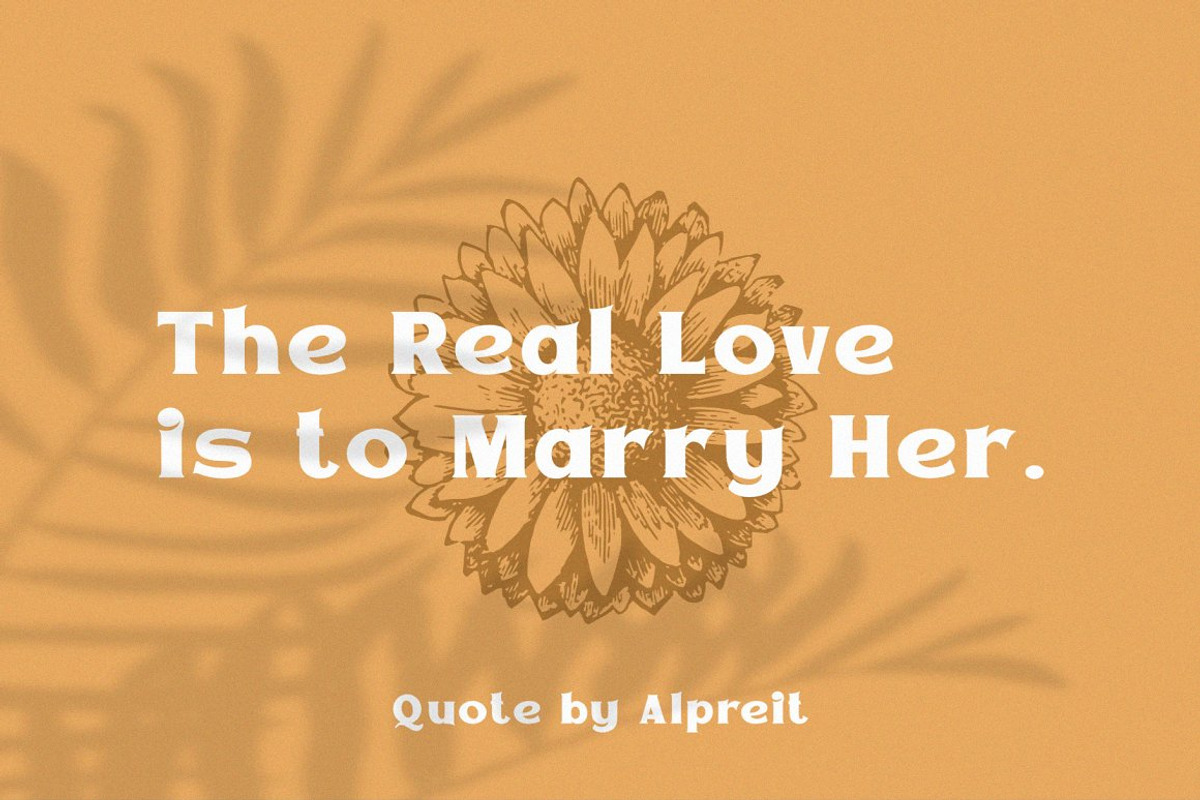
VT Epicgant - Classic Display Serif
Epicgant is a sans serif font with elegant characters. Epicgant is perfect for your elegant-themed work, suitable also for elegant vintage. This font is available in two font style variants, making it easy to do work on various design themes. Epicgant is equipped with multilingual accents.